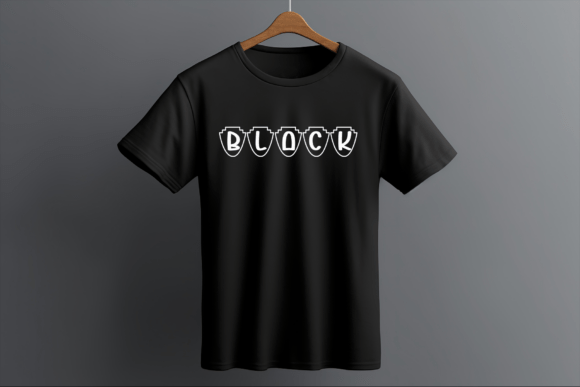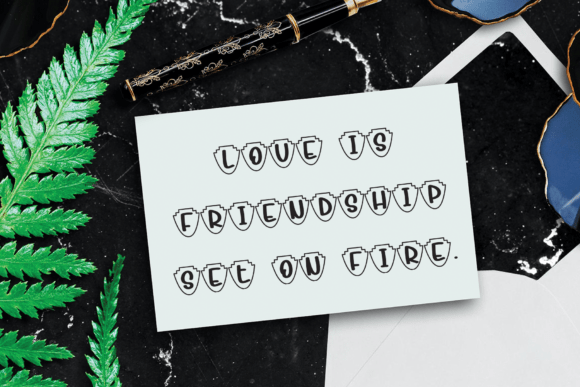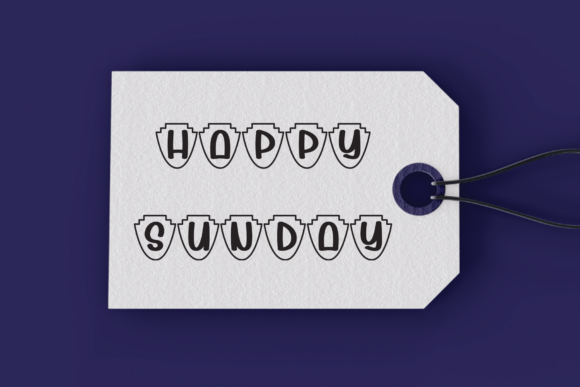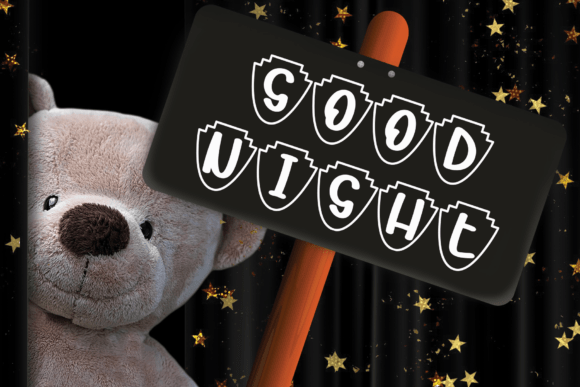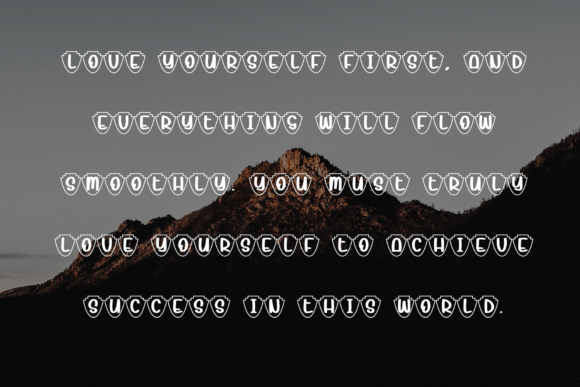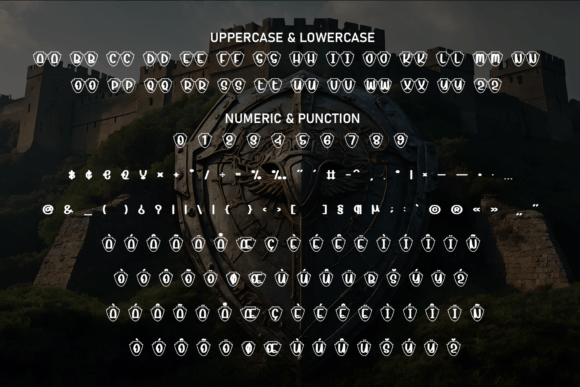
Introducing Castle Shield Font: Elevate Your Designs with a Touch of Elegance
Are you a designer, crafter, or DIY enthusiast looking for a unique and creative way to add a personal touch to your projects? Look no further than the Castle Shield Font, a specially designed font that offers a distinctive and stylish way to elevate your designs. With its latest style letters, this font is perfect for a wide range of applications, from wall displays and wedding invitations to social media post logos, advertisements, product packaging, and more.
What Makes Castle Shield Font So Special?
Our Castle Shield Font is designed to provide you with an extraordinary experience. The font features beautifully crafted letters that exude elegance and sophistication, making it perfect for projects that require a touch of class. Whether you’re working on a wedding invitation, a product label, or a social media post, this font is sure to make your design stand out.
Endless Possibilities with Castle Shield Font
The versatility of the Castle Shield Font is one of its most significant advantages. You can use it for a wide range of projects, including:
- Wall displays and signage
- Social media post logos and graphics
- Advertisements and marketing materials
- Product packaging and labels
- Photography and watermarks
- Invitations and event branding
- Stationery and paper crafts
Why Choose Castle Shield Font?
With so many fonts available, why choose the Castle Shield Font? Here are just a few reasons:
- Unique and distinctive lettering style
- High-quality design and craftsmanship
Tips for Using Castle Shield Font
To get the most out of the Castle Shield Font, here are a few tips:
- Experiment with different font sizes and colors to find the perfect look for your project
- Use the font to create eye-catching headlines and titles
- Combine the font with other design elements, such as images and graphics, to create a unique look